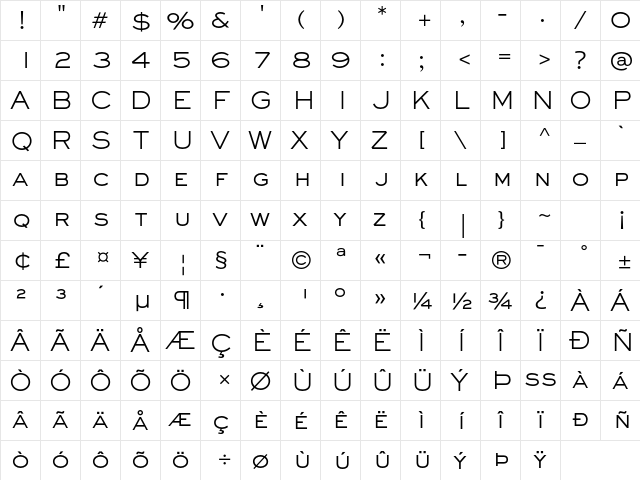
Sackers Gothic Std Light
Design Context for Sackers Gothic Std Typeface
Sackers Gothic Std takes a clean, functional approach — its unadorned letterforms prioritise legibility and work reliably across screen and print environments. Its slender proportions lend an understated elegance to any composition.
A natural fit for high-end product packaging, luxury brand identities, and refined web typography.
Font Pairing: Pair Sackers Gothic Std with a medium or bold serif for headlines — the weight contrast creates an elegant, high-end feel.
Pro Tip: Use Sackers Gothic Std with generous tracking and line-height for the most luxurious effect — light sans-serifs reward spacious, considered layouts.